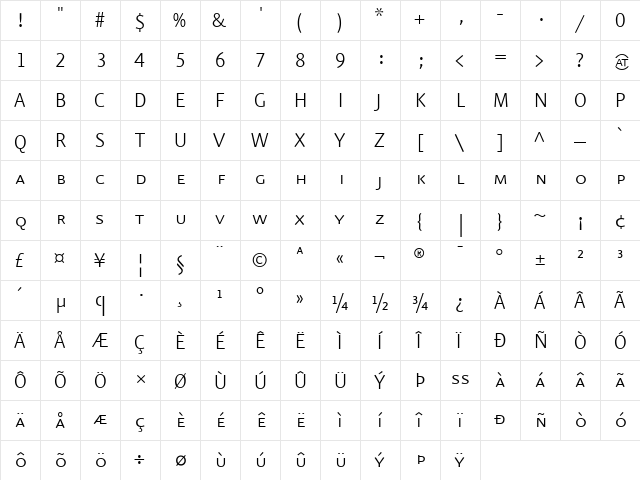
EurekaSans-LightCaps Regular Font Preview
EurekaSans-LightCaps Regular
EurekaSans-LightCaps Regular Font Details
| Foundry | Peter Bilak, published by FontShop International for the FontFont library |
Design Context for EurekaSans-LightCaps Typeface
EurekaSans-LightCaps takes a measured approach to typography — its balanced proportions and neutral character make it a reliable workhorse for both digital and print work. Its slender proportions lend an understated elegance to any composition.